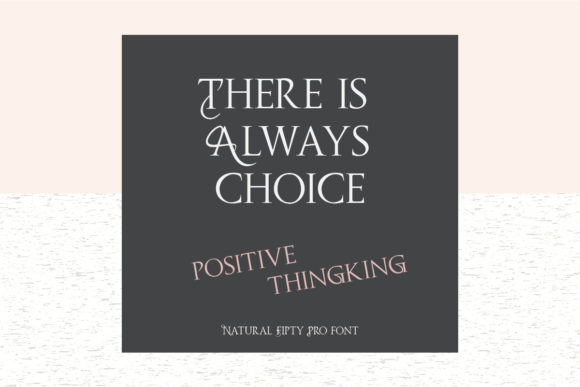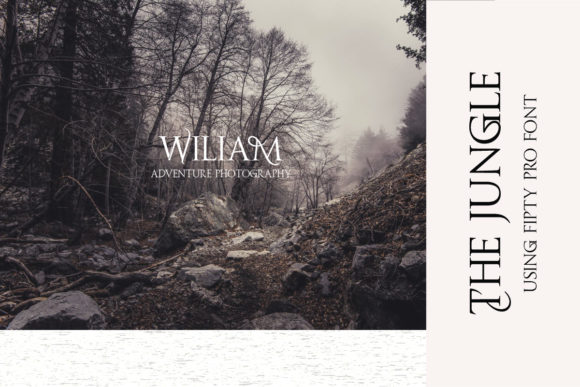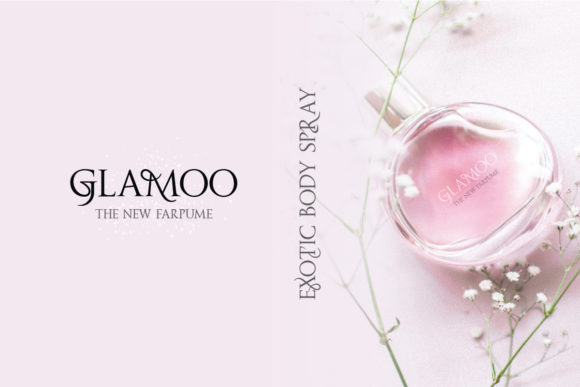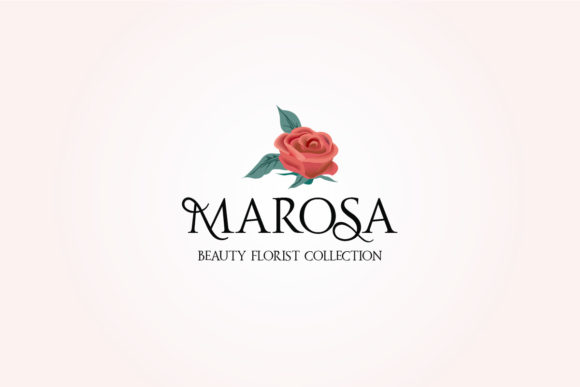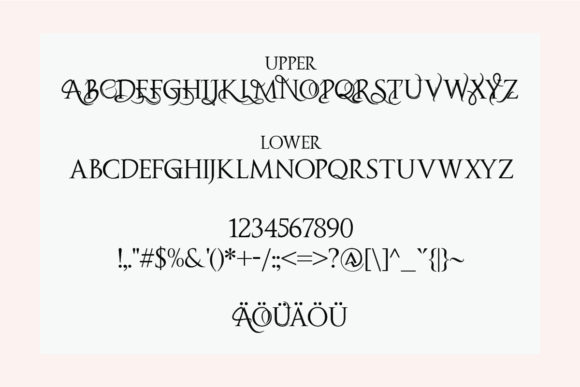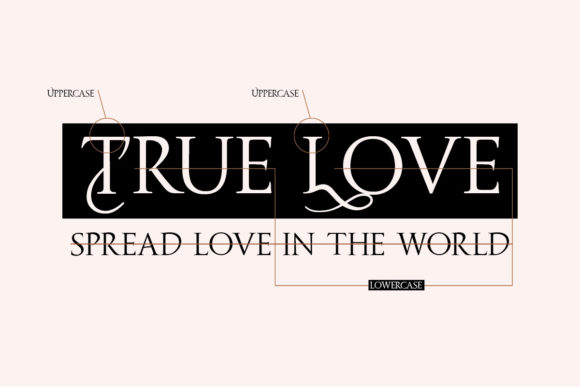
The Perfect Touch: Elevating Your Designs with Fipty Pro Font
As a designer, there’s nothing quite like the thrill of bringing a project to life. The blank page stares back at you, begging to be filled with creative genius. And then it happens – the perfect font comes along, and suddenly your vision takes shape. For those seeking to add a touch of elegance to their work, look no further than the gorgeous Fipty Pro Font.
Fipty Pro Font is a stunning serif typeface that pays homage to the classic calligraphy of the past. With its varying baseline, smooth lines, and gorgeous glyphs, this font is sure to add a romantic touch to any project. Whether you’re working on a wedding invitation, a luxury brand’s marketing materials, or a novel, Fipty Pro Font is the perfect choice for designers looking to elevate their work.
Fifty Pro Font Key Features
- Unique Characteristics: Fifty Pro Font features a clean, modern design with a subtle flair, making it perfect for use in corporate branding, advertising, and editorial content.
Fipty Pro Font Review
Fipty Pro is a sleek and modern font that has garnered attention in recent years. In my opinion, there are a few things that work well with this font: ✨ It has a clean and minimalist aesthetic that makes it perfect for digital interfaces and web design. ✨ The font is highly legible, even at small font sizes, which is a must-have for any font. ✨ It also comes in a wide range of weights, from light to bold, making it versatile for various design projects.
However, there are also some limitations to consider: ⚠️ The font can appear somewhat generic and lacks a unique personality. ⚠️ It may not be the best choice for projects that require a lot of character or personality. ⚠️ The font also has a relatively limited language support, which may be a concern for designers working on projects that require multiple languages.
Overall, I would say that Fipty Pro is a solid choice for designers looking for a clean and modern font. While it may not stand out in a crowded market, it is a reliable and versatile option that can be used in a variety of projects.
- Perfect for digital interfaces and web design
- Highly legible, even at small font sizes
- Available in a wide range of weights
- Reliable and versatile option
Practical Application Guide for Fipty Pro Font
Tips for Getting the Most Out of Fipty Pro Font
Use Fipty Pro Font for headlines and titles to add a touch of sophistication and elegance to your designs.
Experiment with different font sizes and styles to create visual hierarchy and emphasis in your designs.
Combine Fipty Pro Font with other fonts to create a unique and interesting typography style.
Use Fipty Pro Font for business cards, brochures, and other marketing materials to create a professional and polished look.
Apply Fipty Pro Font to website headers and footers to create a consistent and recognizable brand identity.
Use Fipty Pro Font in social media graphics and advertising materials to add a touch of sophistication and style.
Yes, Fipty Pro is available in multiple weights, including light, regular, medium, bold, and black. Each weight has its own unique characteristics and is suitable for different design applications. You can use the weights to create visual hierarchy and emphasis in your design.